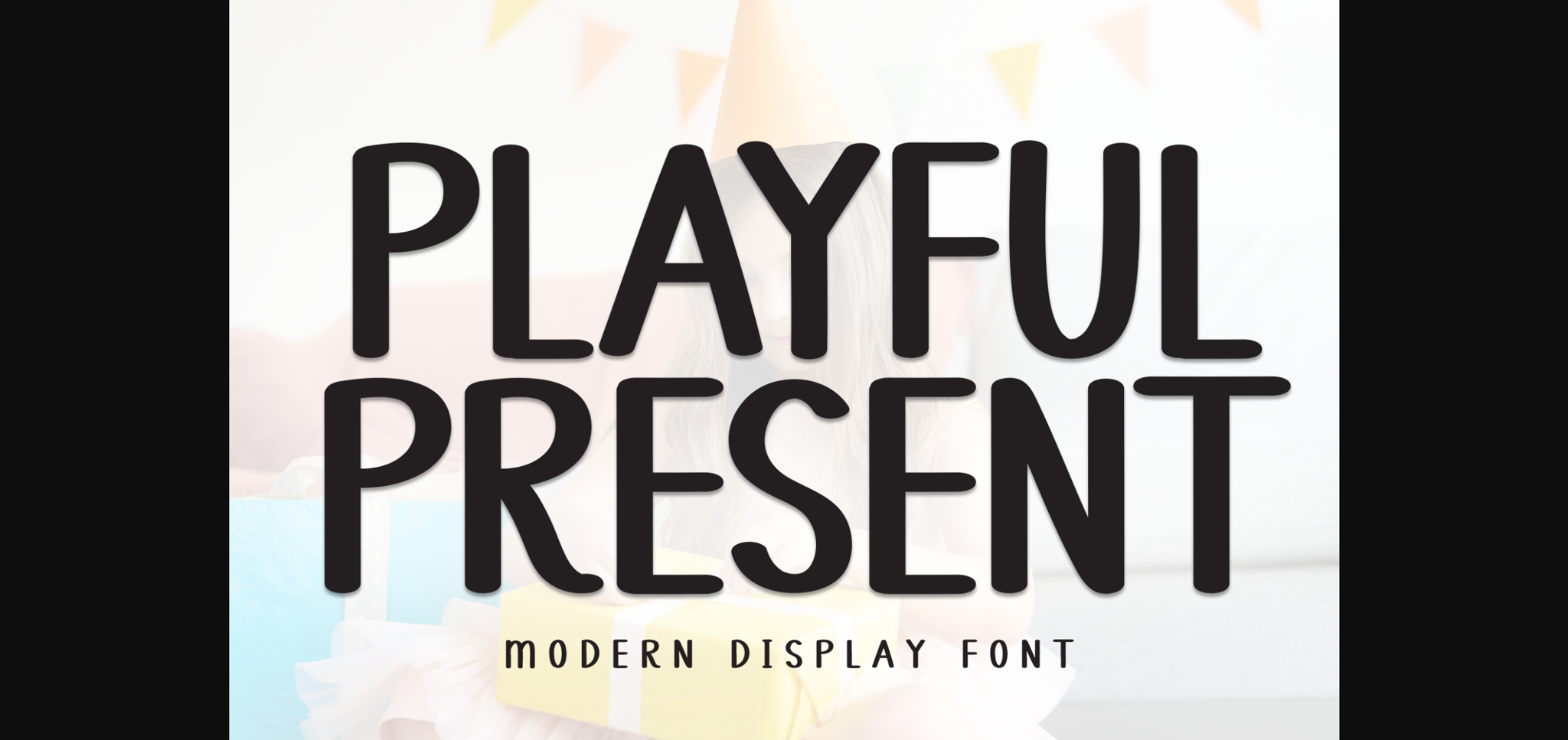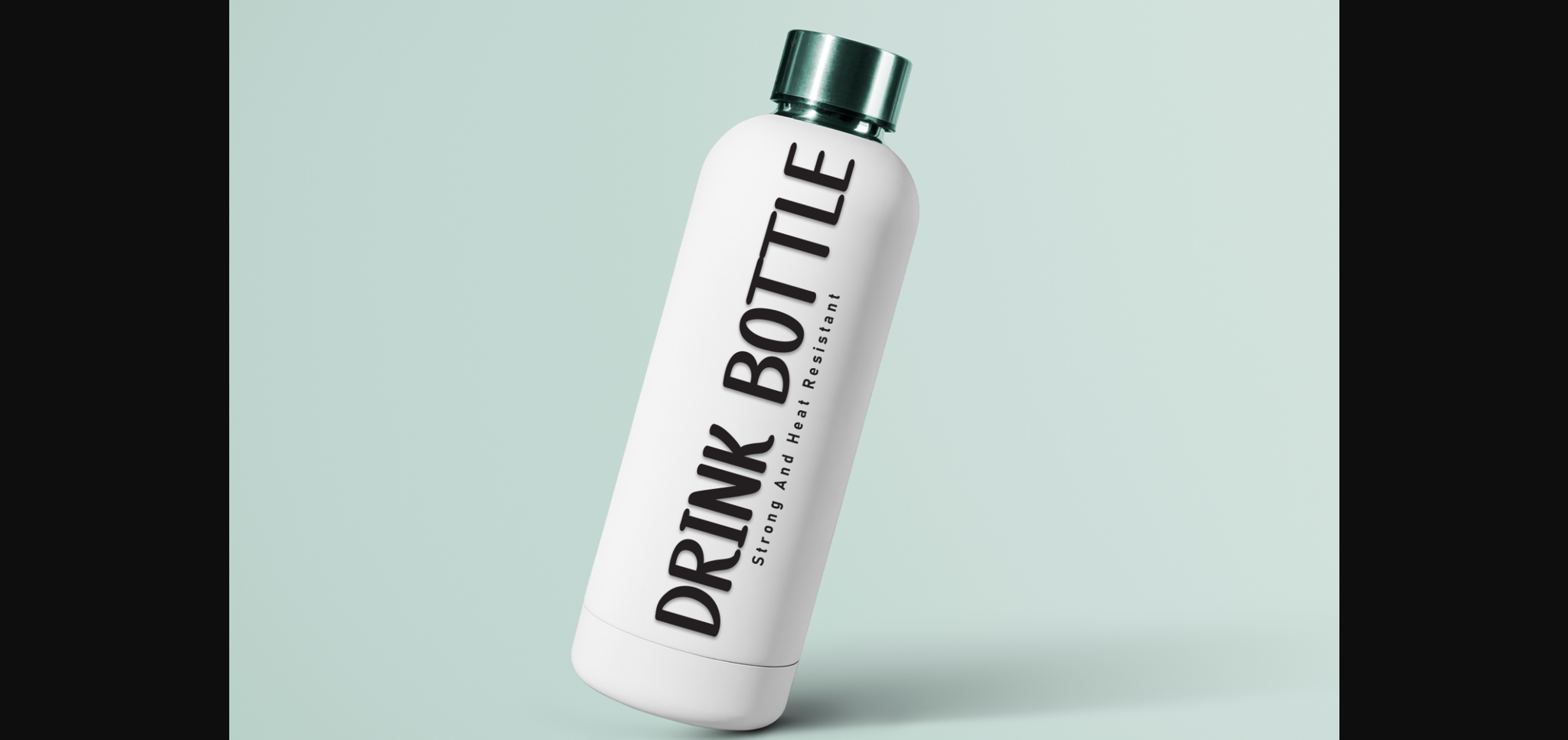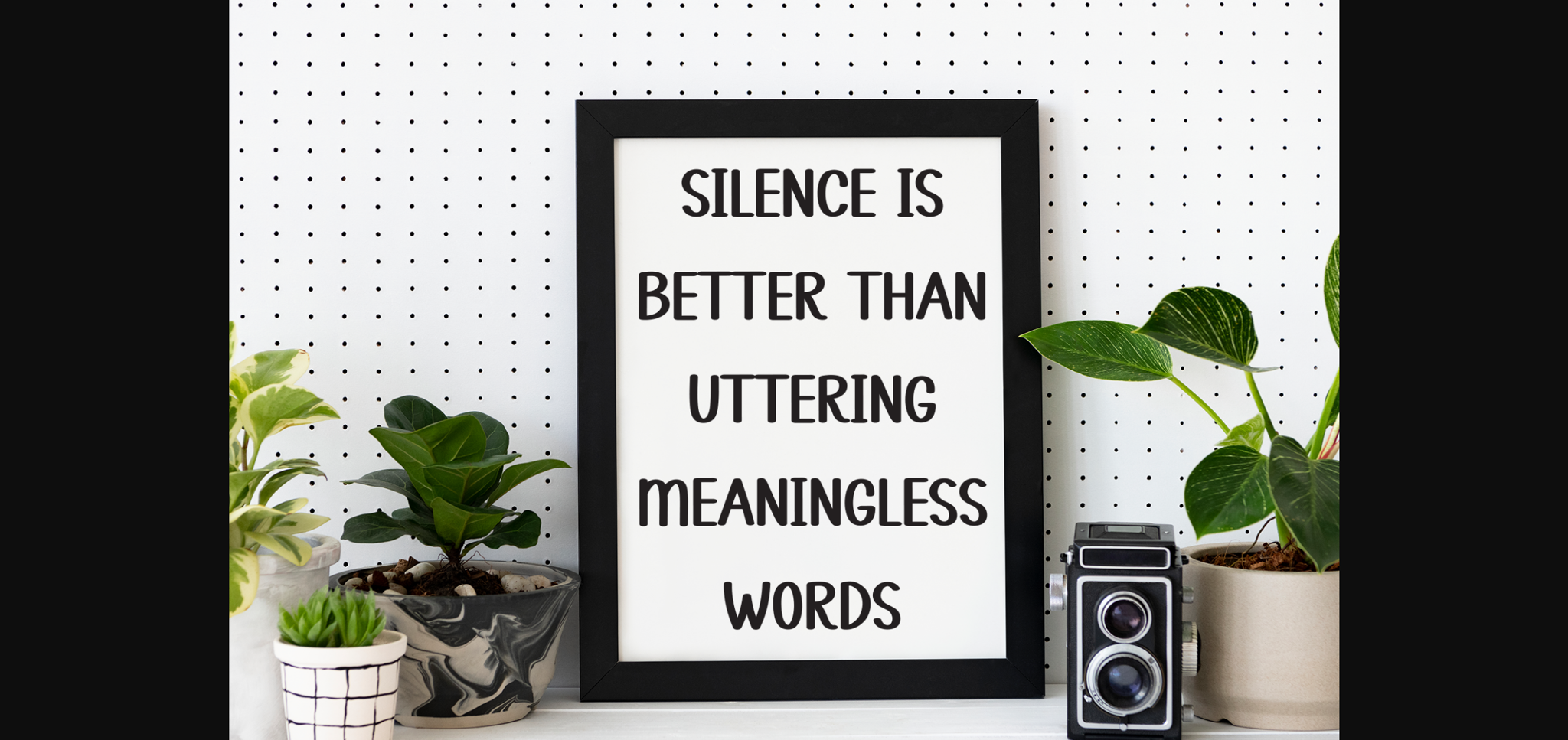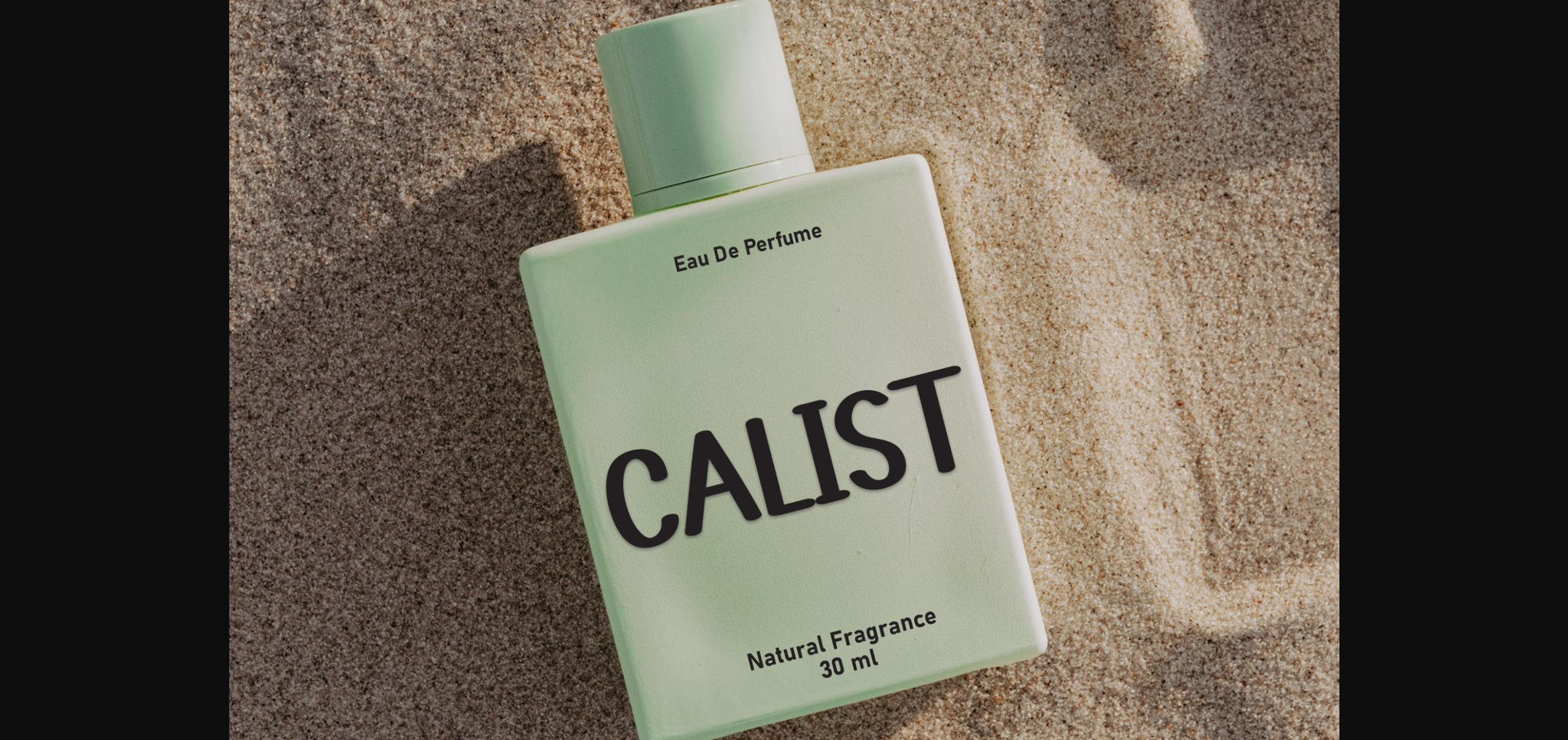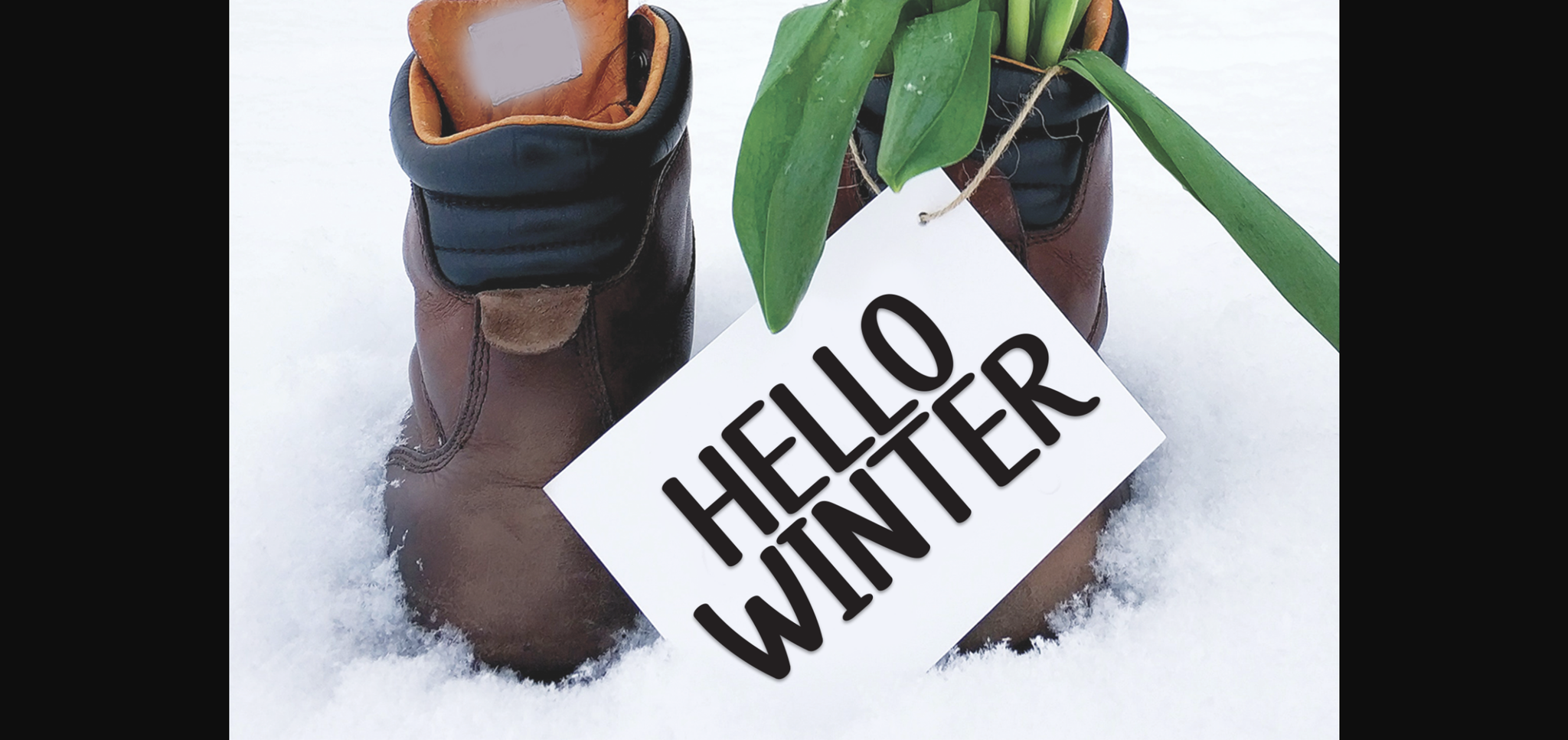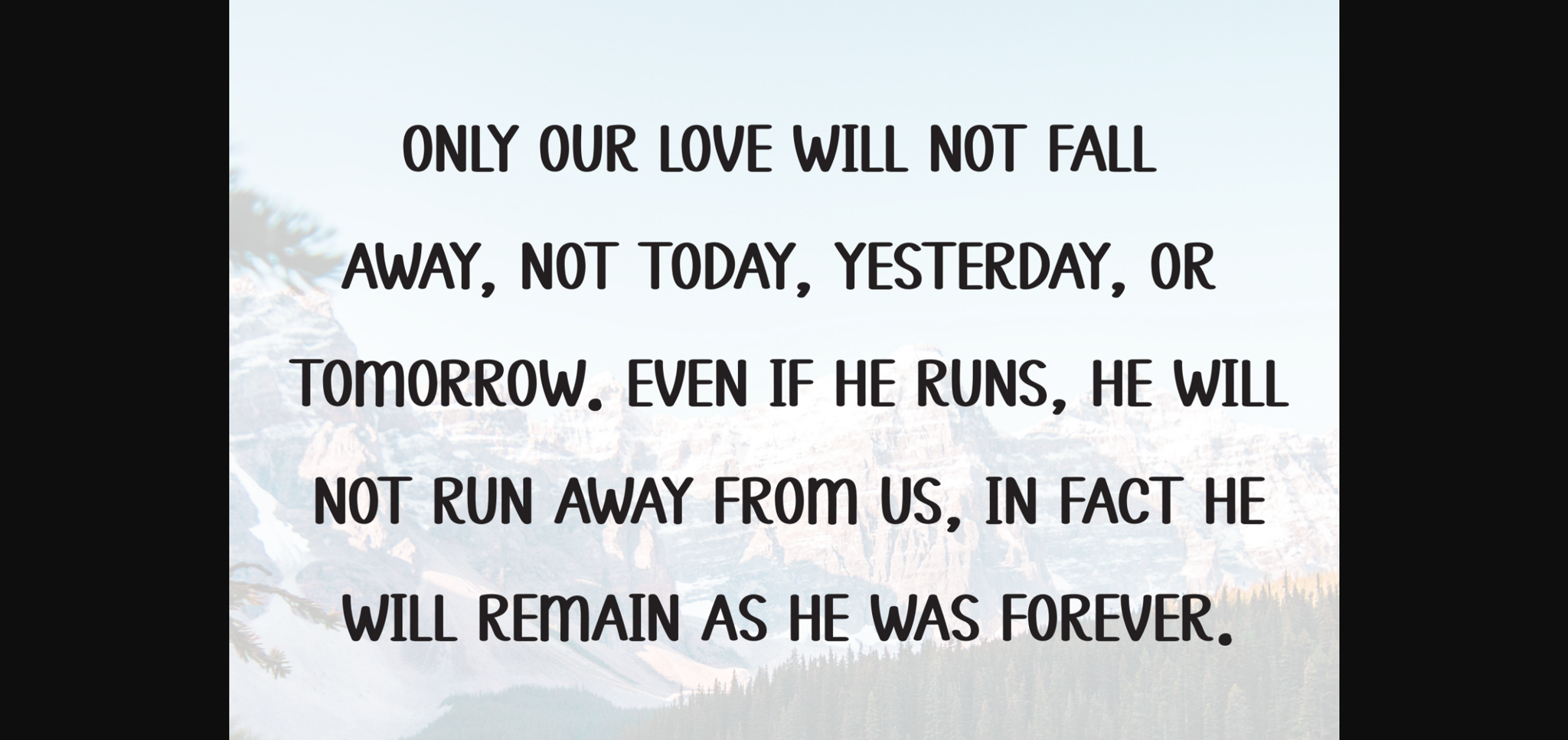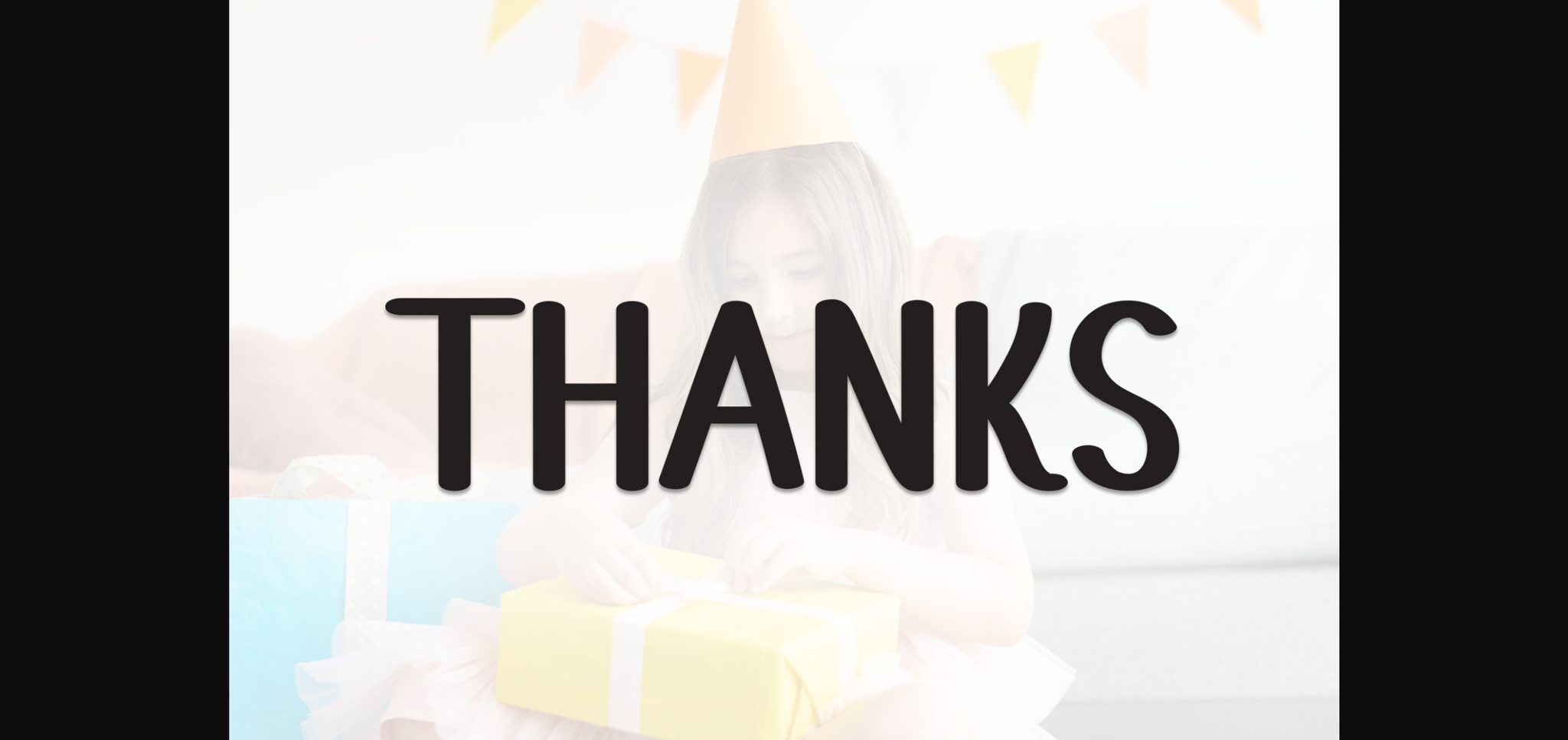
Playful Present is a sweet and friendly handwritten display font. Cute and fun, this font is ideal for writing wedding invitations, cards, or any other design that might need a fun touch!